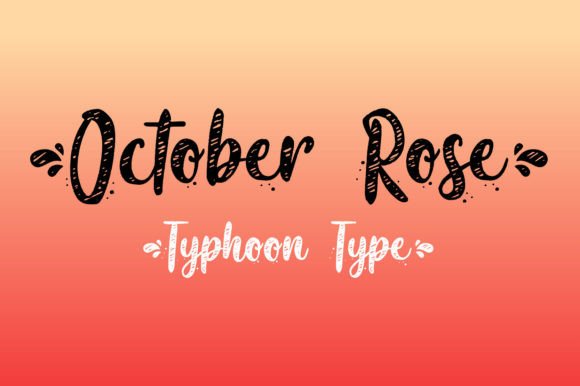
Step into the world of October Rose Font, a captivating script font family that exudes charm and playfulness. Created by the talented Typhoon Typeâ„¢ - Suthi Srisopha, this font is a visual delight that effortlessly adds a personal touch to your designs.
With its casual and handwritten style, October Rose Font is the perfect choice for creating logos, branding, social media posts, greeting cards, and a myriad of other creative projects. Its friendly and inviting nature makes it an ideal font for capturing the attention of your audience, leaving a lasting impression that resonates with their emotions.
Immerse yourself in the beauty of October Rose Font and discover its versatility. Its charming character adds a touch of elegance to your web ads, making them stand out from the crowd and captivating the attention of potential customers. The font's inherent approachability makes it perfect for branding, as it creates a sense of connection and trust between your brand and your audience.
Whether you're crafting heartfelt greeting cards or designing social media posts that spark engagement, October Rose Font is your perfect companion. Its whimsical style effortlessly conveys warmth and friendliness, making it the ideal choice for spreading joy and positivity.
With October Rose Font as your creative ally, unleash your imagination and create designs that resonate with your audience. Its versatility and charm will elevate your projects to new heights, leaving an unforgettable mark on the hearts and minds of those who experience it.